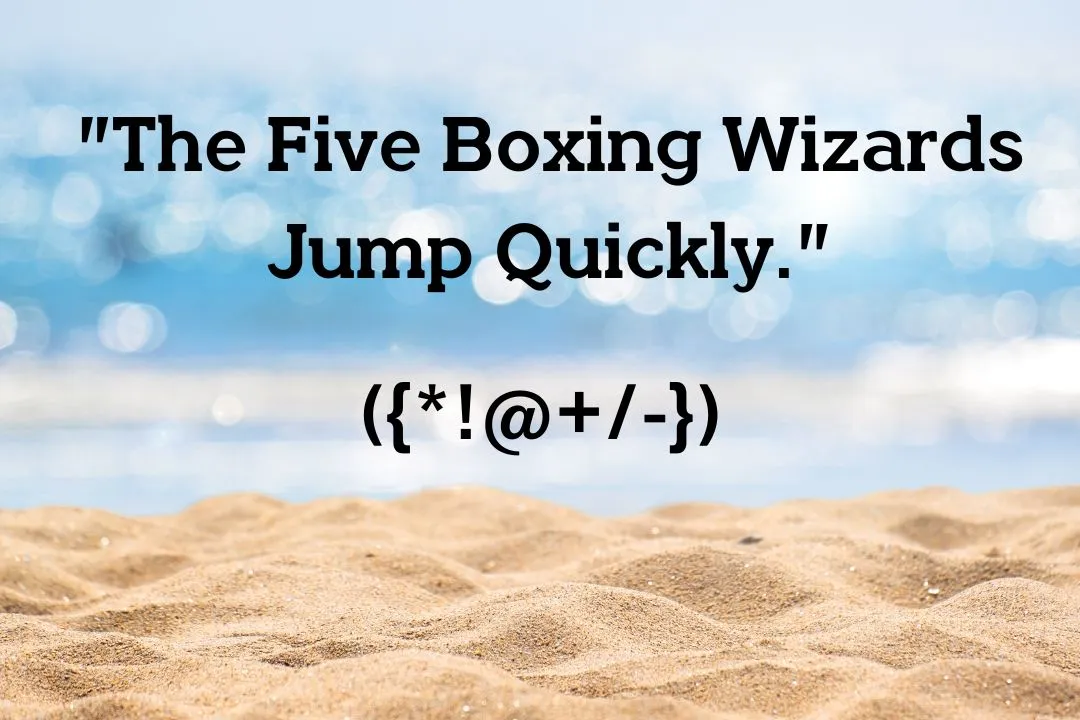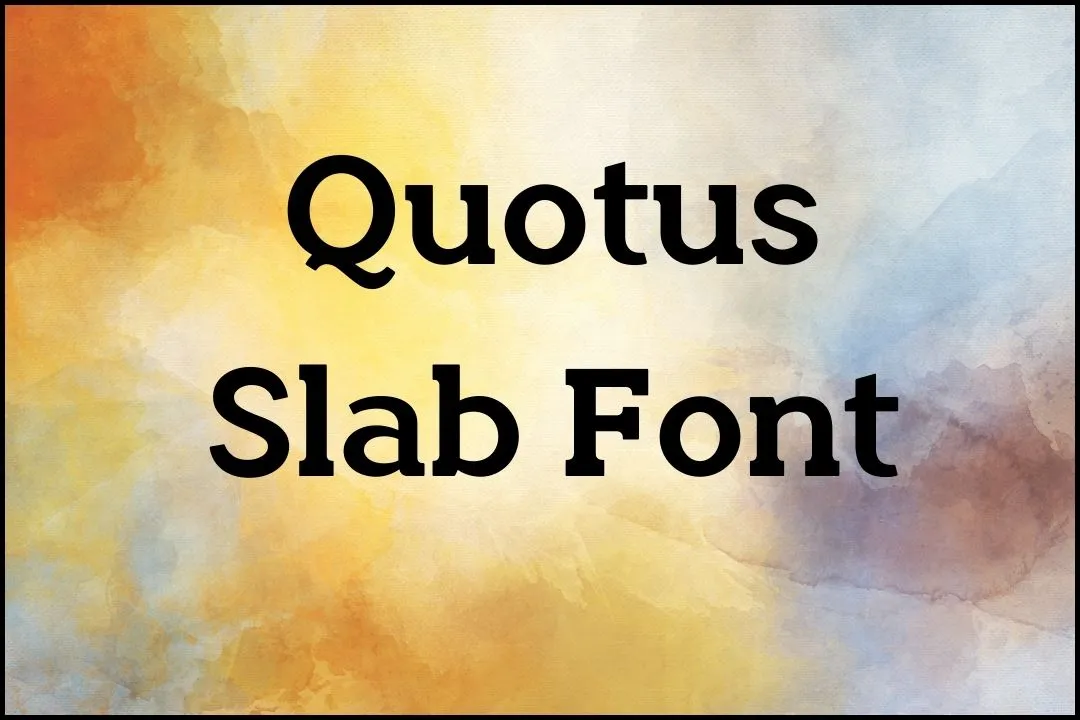
Quotus Slab font is a modern slab serif font that is known for its clean, geometric design and versatility. Developed by the Swiss type foundry, Grilli Type, Quotus Slab is a part of the larger Quotus typeface family, which includes a sans-serif version as well.
The font was released in 2019 and has quickly gained popularity among designers and typographers for its unique blend of classic and contemporary design elements. This texture has almost 16 styles, some of them are given, Thin, Light, Book, Regular, Medium, Bold, and extra bold. Aachen font is alternative to this one.
One of the key features of this typeface is its distinctive slab serifs, which give the font a bold and commanding presence on the page. The letters are designed with clean, straight lines and sharp angles, making them highly legible even at small sizes. You can also check the font generator tool for graphic designs.
Uses of Quotus Slab Font
This is a highly versatile font that can be used for a lot of design projects. Its clean and modern design, combined with its unique slab serifs, make it well-suited for a range of applications. The bold and commanding presence of this font makes it an excellent choice for headlines and titles. The font’s legibility at large sizes and distinctive serifs help to draw the reader’s attention and create impact.
Its clean and geometric design makes it well-suited for logos and branding materials. Its versatility allows it to work well across a range of industries and styles. Quotus Slab’s legibility at small sizes and clean lines make it ideal for use in print design, such as on brochures, flyers, and business cards.
With its webfont version, It is also suitable for use in web design, providing a clean and modern look that is easy to read on screens of all sizes. For more interesting results, you can make the pairing of this font family with Courier font.
What is the kind of Quotus Slab font?
It is a modern slab serif font. This family has 16 classic styles.